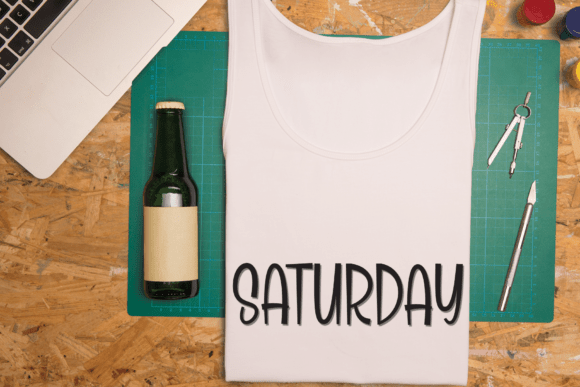
Sunday Minimalist Font: Elevate Your Design with Simplicity and Charm
In the world of typography, fonts play a crucial role in conveying messages, expressing emotions, and creating lasting impressions. Among the numerous font styles available, the Sunday Minimalist Font stands out for its unique blend of simplicity, friendliness, and approachability. This article delves into the characteristics, benefits, and applications of the Sunday Minimalist Font, exploring how it can enhance your designs and leave a lasting impact on your audience.
What is Sunday Minimalist Font?
Sunday Minimalist is a casual and neat display font that seamlessly merges simplicity with a warm, inviting vibe. Its design features clean lines, balanced letterforms, and subtle rounded edges, which collectively contribute to its modern yet approachable aesthetic. This font embodies the essence of contemporary handwritten typography, offering a polished finish that elevates any design.
Key Characteristics of Sunday Minimalist Font
1. Clean Lines and Balanced Letterforms
The Sunday Minimalist Font boasts clean lines and meticulously crafted letterforms that ensure clarity and readability. This makes it an excellent choice for various design applications, from digital content to print materials.
2. Subtle Rounded Edges
The subtle rounded edges of the Sunday Minimalist Font add a touch of warmth and friendliness, distinguishing it from more rigid or traditional fonts. This feature makes it particularly suitable for brands aiming to convey a sense of approachability and amiability.
3. Modern Handwritten Typography
Inspired by modern handwritten typography, the Sunday Minimalist Font offers a fresh and contemporary look. Its polished finish ensures that it remains versatile and adaptable, fitting various design contexts and themes.
Benefits of Using Sunday Minimalist Font
1. Enhances Readability
The clean structure and balanced design of the Sunday Minimalist Font significantly enhance readability, making it ideal for body text, headlines, and captions.
2. Adds a Warm and Inviting Touch
The warm and inviting nature of the Sunday Minimalist Font makes it perfect for brands looking to establish a friendly and approachable image. It adds a personal touch to any design, making it more relatable and engaging.
3. Versatile and Adaptable
The versatility of the Sunday Minimalist Font is one of its standout features. It can be used across various platforms and design applications, from branding and packaging to digital content and advertising.
Applications of Sunday Minimalist Font
1. Branding and Logo Design
The Sunday Minimalist Font is an excellent choice for branding and logo design, as it offers a unique blend of simplicity and charm. Its clean lines and friendly vibe make it suitable for businesses aiming to establish a strong and approachable brand identity.
2. Headlines and Titles
For headlines and titles, the Sunday Minimalist Font provides a crisp and clear structure that captures attention and communicates messages effectively. Its modern aesthetic ensures that your headlines stand out and leave a lasting impression.
3. Packaging Design
In packaging design, the Sunday Minimalist Font can add a warm and inviting touch to product labels, boxes, and packaging materials. Its versatility allows it to complement various design styles and themes, making it a valuable asset for product designers.
4. Digital Content
The Sunday Minimalist Font is also well-suited for digital content, including website designs, social media posts, and digital advertising. Its clean structure and readability ensure that your content is easily accessible and engaging across various digital platforms.
How to Use Sunday Minimalist Font Effectively
1. Pair with Complementary Fonts
To maximize the impact of the Sunday Minimalist Font, consider pairing it with complementary fonts that enhance its features. Choose fonts that offer contrast and balance, ensuring that your design remains visually appealing and cohesive.
2. Adjust Font Sizes and Weights
Experiment with different font sizes and weights to create visual hierarchy and emphasis in your design. The Sunday Minimalist Font offers flexibility in this regard, allowing you to adapt it to various design contexts and requirements.
3. Consider Color Schemes
The color scheme you choose can significantly impact the effectiveness of the Sunday Minimalist Font. Select colors that complement the font’s warm and inviting nature, ensuring that your design conveys the desired message and emotions.
The Sunday Minimalist Font offers a unique blend of simplicity, friendliness, and approachability, making it an excellent choice for various design applications. Its clean lines, balanced letterforms, and subtle rounded edges contribute to its modern yet inviting aesthetic, enhancing readability and charm in equal measure. By incorporating the Sunday Minimalist Font into your designs, you can create visually appealing and engaging content that resonates with your audience and leaves a lasting impression.
Key Takeaways:
- The Sunday Minimalist Font combines simplicity with a friendly, approachable vibe.
- Its clean lines, balanced letterforms, and subtle rounded edges make it suitable for modern designs.
- The font is versatile and adaptable, fitting various design applications, including branding, headlines, packaging, and digital content.
- It enhances readability and adds a warm and inviting touch to any design.